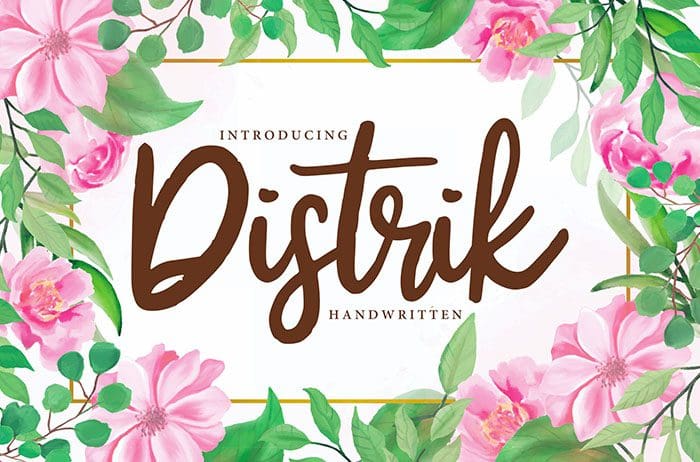
Distrik Handwritten Font
Distrik is a playful and unique handwritten font with a cool vibe. Get inspired by its dazzling and romantic look. Thanks to Vunira for sharing this font. This font free for personal use only, if you need commercial use and full version please download in here.